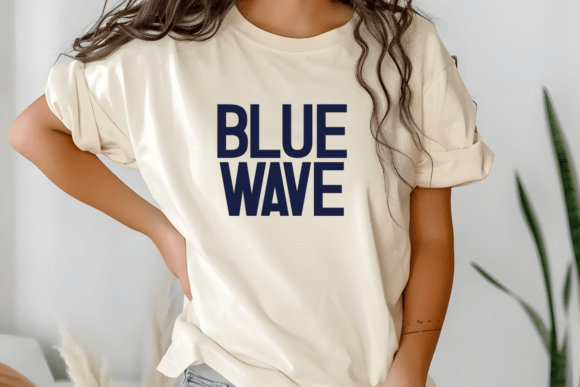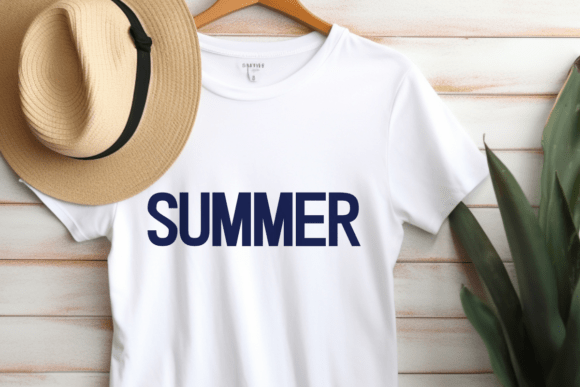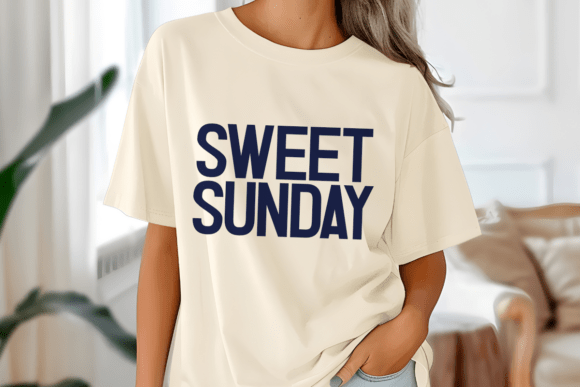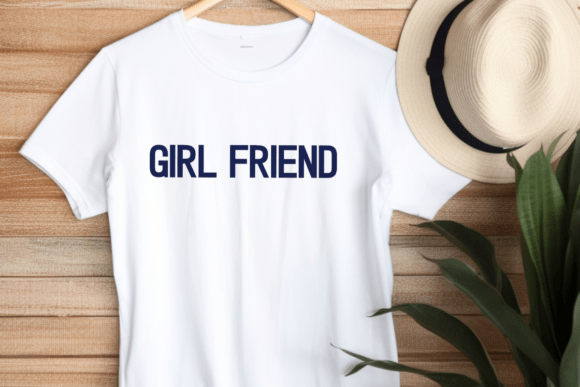
Cousins Beach Font: The Perfect Choice for Modern yet Vintage Designs
Are you a designer or crafter looking for a font that combines modern simplicity with a stunning vintage feel? Look no further than Cousins Beach Font! This modern condensed sans serif font is perfect for a wide range of design projects, from logos and branding to invitations, greeting cards, and more.
What is Cousins Beach Font?
Cousins Beach Font is a carefully crafted font that blends modern and vintage elements to create a unique and stylish look. Its condensed sans serif design makes it perfect for use in a variety of applications, from digital designs to print materials. The font’s clean lines and simple shapes give it a modern feel, while its subtle vintage flair adds a touch of sophistication and elegance.
Features of Cousins Beach Font
Cousins Beach Font has a number of features that make it an ideal choice for designers and crafters. Some of its key features include:
- Modern condensed sans serif design: Cousins Beach Font has a sleek and streamlined design that is perfect for use in modern designs.
- Vintage feel: The font’s subtle vintage flair adds a touch of sophistication and elegance to any design.
- Highly versatile: Cousins Beach Font can be used in a wide range of applications, from logos and branding to invitations, greeting cards, and more.
- Easy to read: The font’s clean lines and simple shapes make it easy to read, even at small sizes.
Uses for Cousins Beach Font
Cousins Beach Font is a highly versatile font that can be used in a wide range of applications. Some of the many uses for this font include:
- Logos and branding: Cousins Beach Font is perfect for use in logos and branding materials, thanks to its modern and stylish design.
- T-shirts and mugs: The font’s bold and eye-catching design makes it perfect for use on t-shirts, mugs, and other promotional products.
- Invitations and greeting cards: Cousins Beach Font is a great choice for use in invitations and greeting cards, thanks to its elegant and sophisticated design.
- Posters and packaging: The font’s clean lines and simple shapes make it perfect for use in posters, packaging, and other print materials.
- Signs and cutting boards: Cousins Beach Font can also be used in signs, cutting boards, and other decorative items.
- Printables and crafting: The font’s versatility and ease of use make it a great choice for use in printables and crafting projects.
Why Choose Cousins Beach Font?
So why should you choose Cousins Beach Font for your next design project? Here are just a few reasons:
- Unique and stylish design: Cousins Beach Font has a unique and stylish design that will help your project stand out from the crowd.
- Highly versatile: The font can be used in a wide range of applications, making it a great choice for designers and crafters who need a font that can adapt to different projects.
- Modern yet vintage feel: The font’s modern condensed sans serif design and subtle vintage flair make it perfect for designers and crafters who want to create modern yet stylish designs.
In conclusion, Cousins Beach Font is a modern condensed sans serif font with a stunning vintage feel that is perfect for a wide range of design projects. Its unique and stylish design, versatility, and ease of use make it a great choice for designers and crafters who want to create modern yet stylish designs. Whether you’re looking to create logos, branding materials, invitations, greeting cards, or more, Cousins Beach Font is the perfect choice.